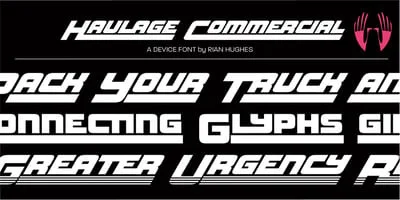
Haulage Commercial Font
Haulage Commercial Font excels in trucking company branding, logistics firm logos, freight transportation signage, shipping container graphics, warehouse facility displays, cargo company communications, commercial vehicle lettering, supply chain presentations, industrial transportation marketing, and heavy-duty equipment documentation. Its commercial character makes it perfect for projects requiring industrial strength and reliable transportation appeal.
What makes Haulage Commercial Font exciting is its robust representation of commercial transportation power through bold letterforms that capture the strength and reliability of heavy-duty hauling operations. The font features sturdy, no-nonsense shapes with industrial proportions that convey dependability and professional efficiency while maintaining excellent roadside readability. Its commercial character transforms text into expressions of logistical excellence that inspire confidence in transportation services and supply chain reliability.
The Haulage Commercial Font family includes Regular, Bold, Heavy, Industrial, Cargo, Fleet, and Transport variations. Each style preserves the font's commercial essence while offering different levels of industrial weight and transportation strength for creating authentic logistics graphics. The comprehensive character set includes transportation symbols, commercial ornaments, industrial markers, and logistics glyphs essential for genuine freight and transportation typography projects.
Transportation companies and logistics professionals consistently choose Haulage Commercial Font for projects demanding authoritative commercial typography solutions. The font's industrial character instantly establishes transportation credibility while ensuring clear communication across logistics marketing channels. Its versatility spans from subtle commercial touches to bold statements that celebrate the essential role of freight transportation in modern commerce and economy.
Whether you're developing transportation brand identities, creating logistics marketing materials, or designing commercial vehicle communications, Haulage Commercial Font provides the perfect combination of industrial authenticity and professional functionality. The font's robustly engineered letterforms ensure consistent performance while maintaining the commercial strength that makes freight transportation such a vital component of global commerce.
The industrial heritage of Haulage Commercial Font makes it exceptional for establishing credible presence in competitive transportation markets. Its commercial precision and industrial appeal work seamlessly across traditional freight documentation and modern digital logistics platforms. The font maintains its transportation character across various commercial applications and professional logistics communications.
Move with authority using Haulage Commercial Font and discover how authentic commercial typography can enhance your transportation projects with genuine industrial appeal and logistics reliability. This remarkable typeface combines freight industry tradition with contemporary functionality, making it indispensable for transportation professionals seeking to project strength and reliability in competitive commercial markets.